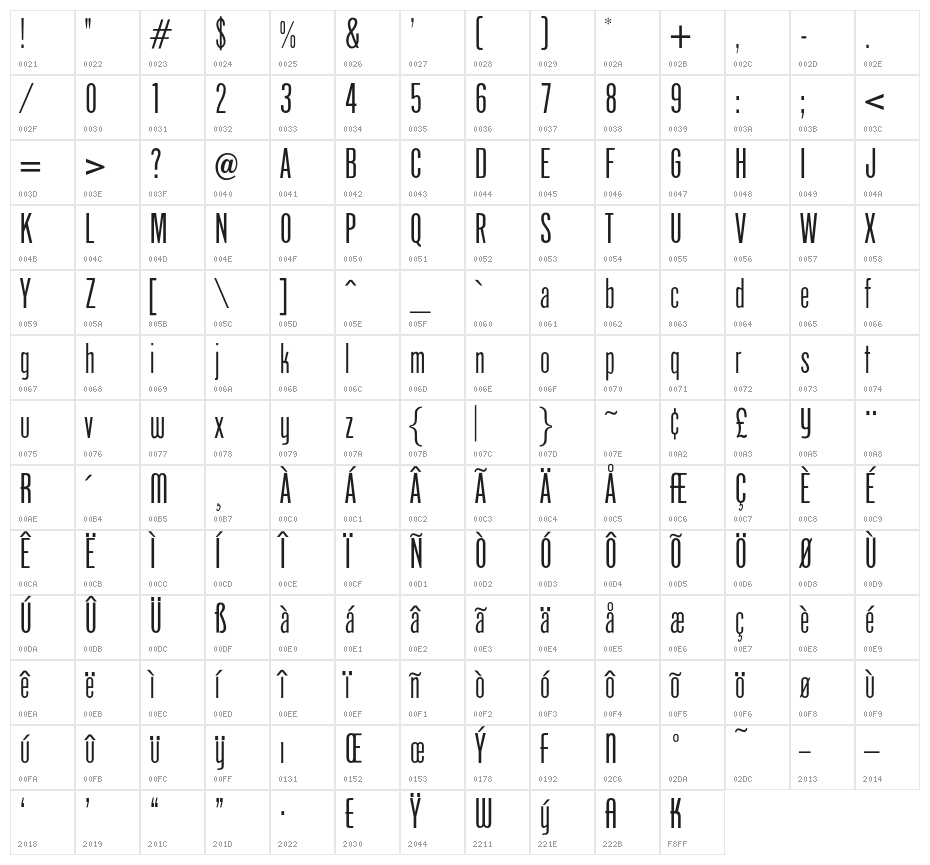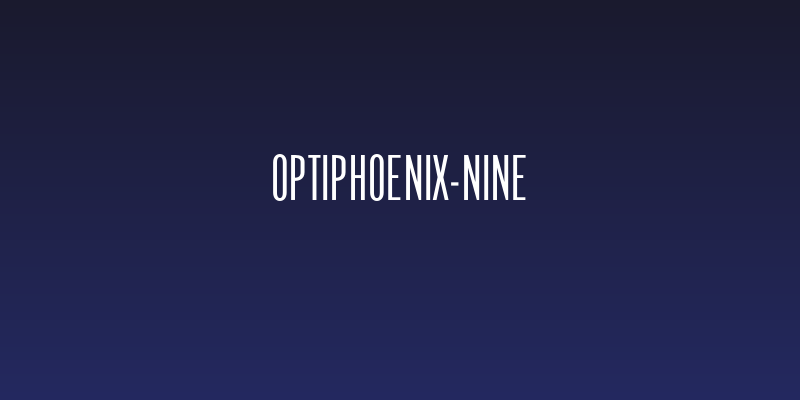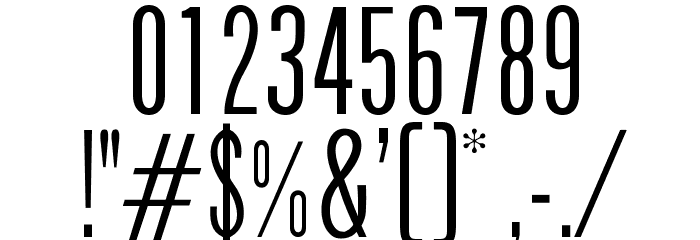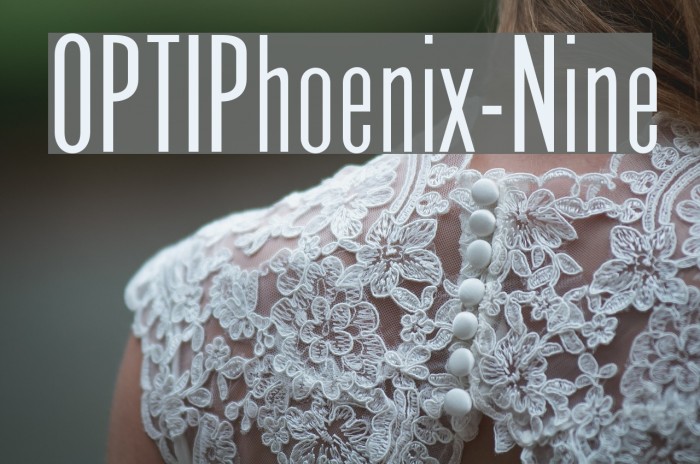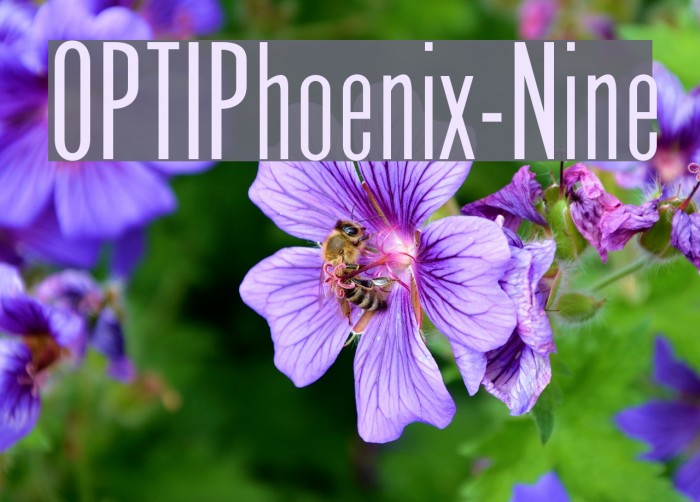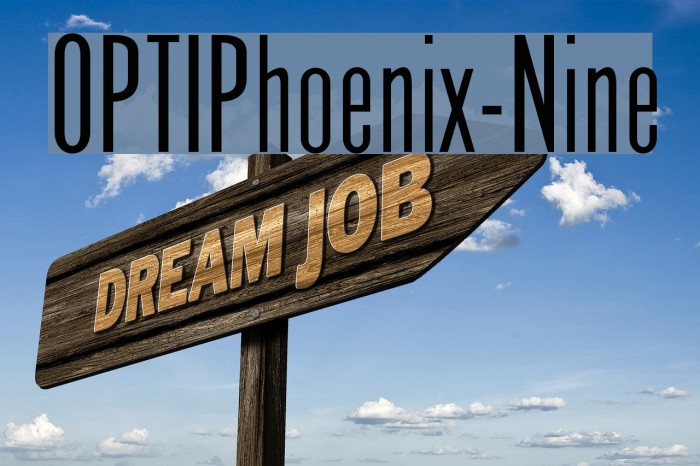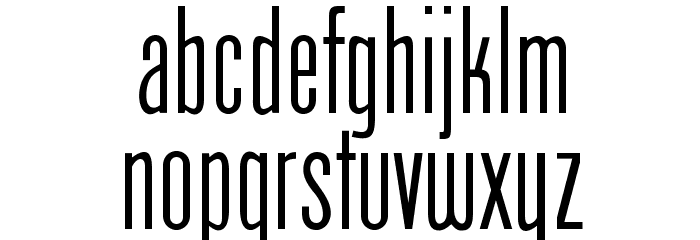
OPTIPhoenix-Nine Font
OPTIPhoenix-Nine Description
This font features a tall, narrow design with a modern and sleek appearance. The characters are elongated, giving a sense of height and elegance. The strokes are consistent in width, providing a uniform look across all characters. The uppercase letters are particularly striking, with a commanding presence that makes them ideal for headlines. The lowercase letters maintain the same narrow style, ensuring readability while preserving the font's distinctive aesthetic. Numbers are clear and easy to read, matching the overall style. Special characters are well-integrated, maintaining the font's cohesive design.
| Proposed Projects | Ideal for modern branding, magazine headlines, posters, and minimalist design projects. |